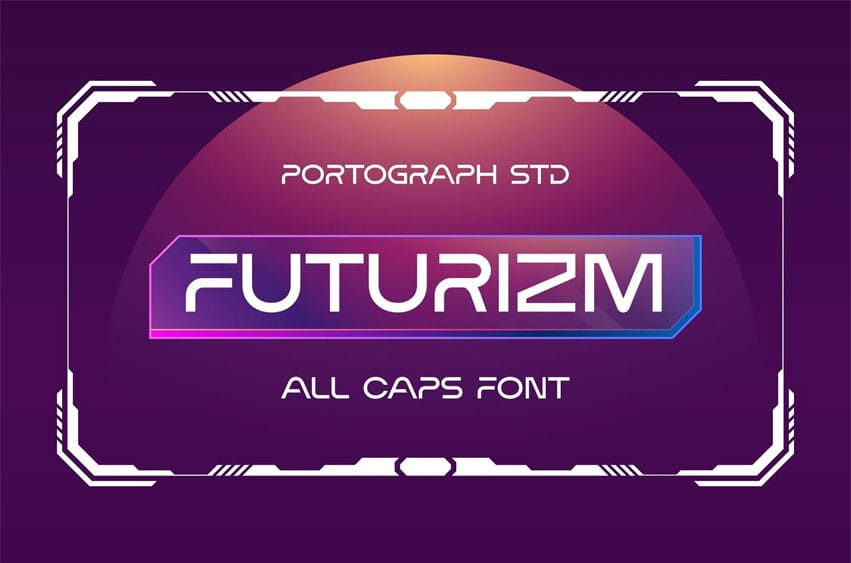
Futurizm Font typeface has a unique and attractive appearance. Futurizm looks great when combined with solid character fonts.
For branding projects, logos, wedding designs, social media posts, advertisements, product packaging, product designs, labels, photography, watermarks, invitations, stationery, and anything requiring handwritten taste, Futurizm is perfect.